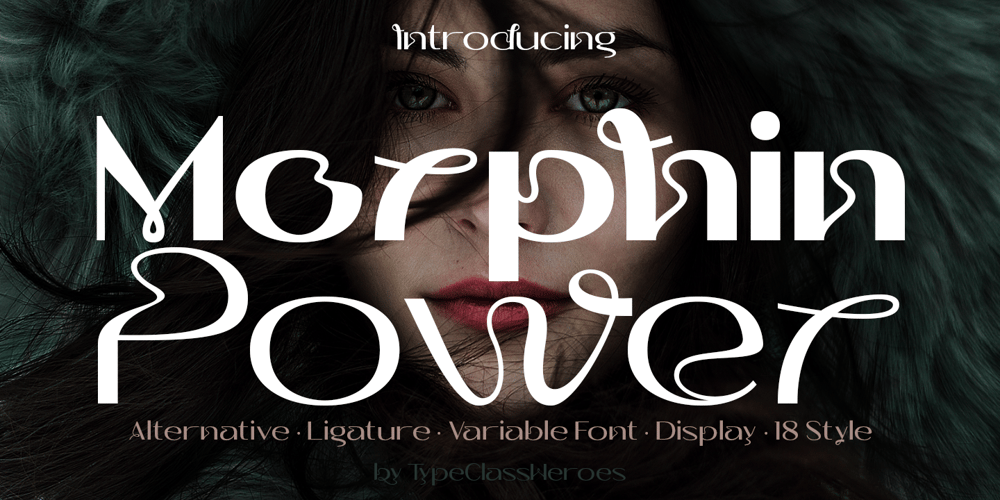
Morphin Power Font Family was designed by Pande Made and published by TypeClassHeroes. Morphin Power contains 18 styles and family package options. Morphin Power is a variable modern display typeface with lots of alternative style and ligatures. Its unique design with various width and weight that you can explore and combine creating rhythm and texture for comfortable reading. Morphin Power support for languages such as: Danish, English, Finnish, French, German, , Norwegian , Portuguese, Spanish, Swedish. In variable version, it allows multiple options when designing, adapting to different composition solutions. use this font for any branding, product packaging, invitation, quotes, t-shirt, label, poster, logo etc.Feature Uppercase & Lowercase Number & Symbol International Glyphs Multilingual support Alternative Ligatures